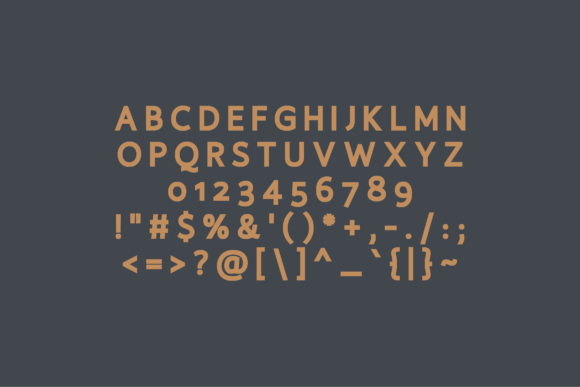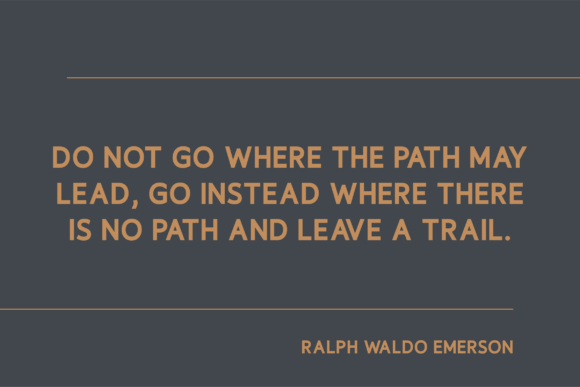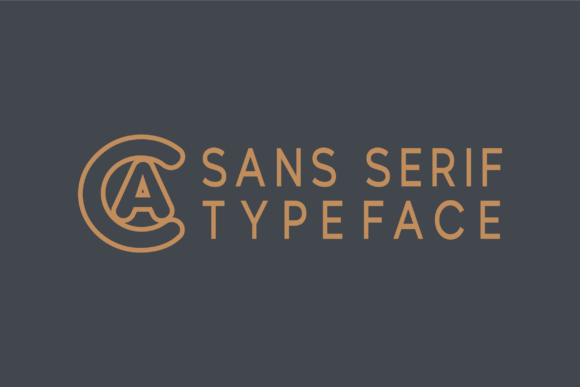
Introduction to Islander Font
Have you ever found yourself in the middle of a creative project, staring at a blank page, and struggling to find the perfect font to bring your vision to life? That’s exactly where I was when I discovered the Islander Font. As a designer, I know how frustrating it can be to search for the perfect typeface, only to end up with something that’s either too generic or too overwhelming. But what if I told you that there’s a font that can elevate your designs, add a touch of sophistication, and make your creative projects truly shine?
That’s where the Islander Font comes in – a modern, classy sans serif typeface that’s perfect for designers who want to add a touch of high-quality design to their projects. With its clean lines, transparent background, and range of punctuation and symbols, this font is a valuable resource for any design enthusiast.
Key Features of Islander Font
- High-quality, unique design for creative projects, making it a valuable design resource.
- Comes with a transparent background, enabling users to easily customize and integrate it into their designs.
- Features a clean and elegant design, making it suitable for a wide range of creative projects.
- Has a resolution of 300 DPI, ensuring that it looks crisp and clear when used in print or digital designs.
- Perfect for designers, artists, and writers looking for a unique and high-quality font to enhance their work.
Honest Review: Islander Font
I recently stumbled upon the Islander Font and was eager to dive in and explore its features. As a designer, I always keep an eye out for high-quality design resources that can elevate my creative projects.
Here’s what I love about the Islander Font: ✨ It’s a free download, which is always a bonus for me. The font has a beautiful, laid-back feel that’s perfect for projects that need a relaxed vibe. The transparent background also makes it easy to layer and manipulate the font in various design applications.
Some of the standout features of the Islander Font include:
- High-quality design with smooth lines and subtle texture
- Easy to read and versatile for various font sizes
However, there are a few limitations to consider: ⚠️ The font may not be suitable for projects that require a bold, statement-making font. Additionally, some users may find the relaxed feel of the font to be too casual for certain design applications.
Overall, I’m impressed with the Islander Font and would recommend it to designers looking for a high-quality, free design resource for their creative projects.
Tips for Getting the Most Out of Islander Font
For the best results, use the Islander Font on a transparent background to create a clean and modern look. Experiment with different font sizes and styles to add visual interest to your project.
The Islander Font is perfect for a variety of creative projects, including:
- Branding and logo design
- Infographics and data visualization
- Brochures and flyers
- Website design and development
With its free download and high-quality design, the Islander Font is a valuable resource for any designer or creative project.